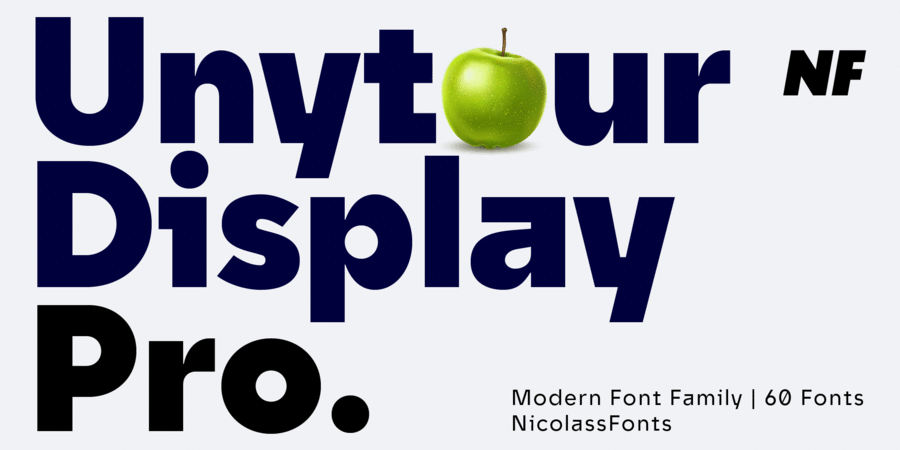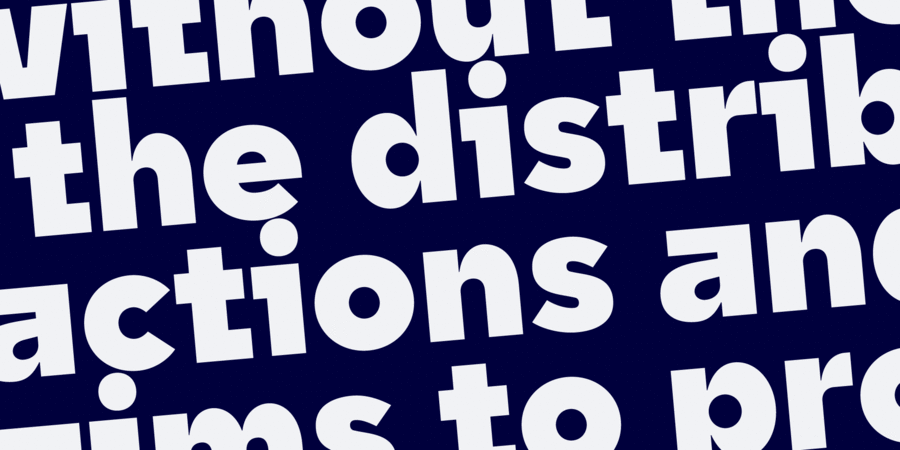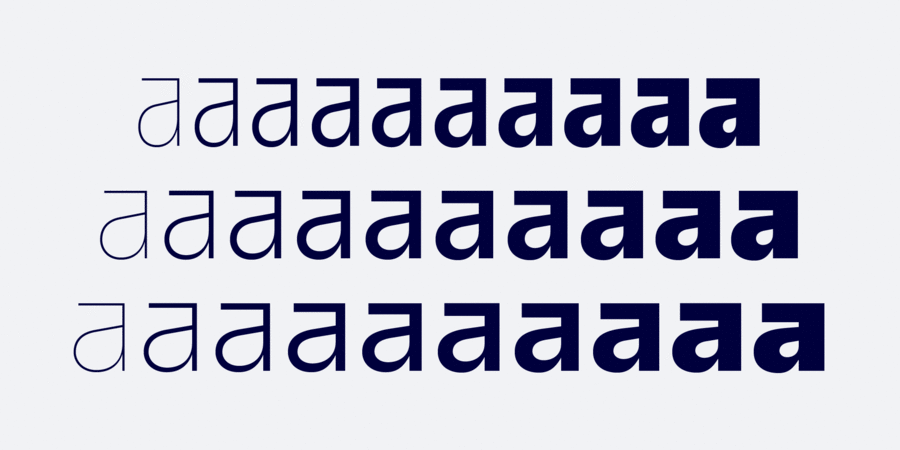
About Unytour Display Pro is a modern sans-serif font family comprising 60 fonts. It includes 10 weights, ranging from Thin to Heavy, plus italics across 3 widths. Each weight offers 1,000 glyphs, alternative characters (such as A, G, I, R, a, l, t, y), and OpenType features. Unytour Display Pro excels in legibility for both print and digital applications, including TV screens and more. The typeface was designed by Mykola Savchuk in 2024.